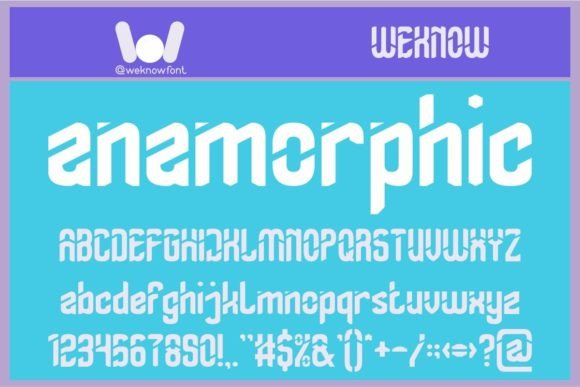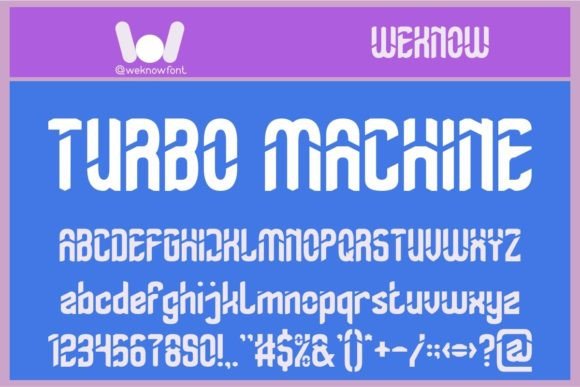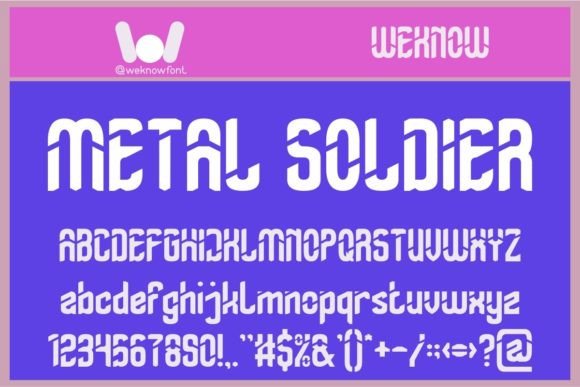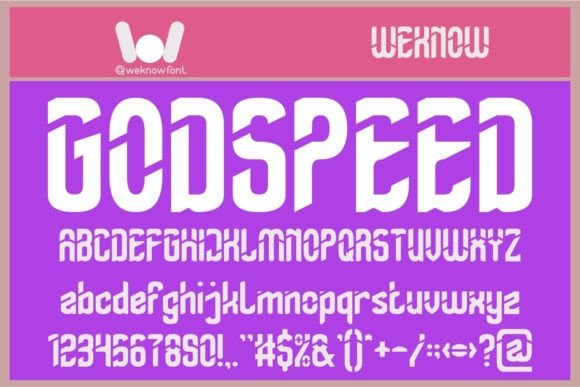
Introduction to Human Graphic Font
Human Graphic is a techno-SciFi-themed display font.
This font is suitable for logos, logotypes, and headlines in corporate identity, brand identity, the apparel industry, posters, music, movies, games, magazines, books, comics, cartoons, YouTube, Instagram, websites, or any of your creative design projects .
Key Features of Human Graphic Font
Why Choose Human Graphic Font?
Human Graphic Font offers exceptional quality and versatility, making it a valuable addition to your design toolkit. Whether you’re creating for personal projects or commercial use, Human Graphic Font delivers professional results.